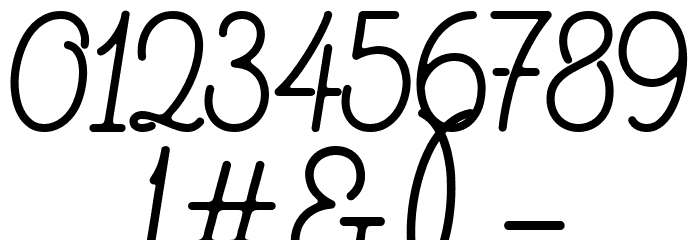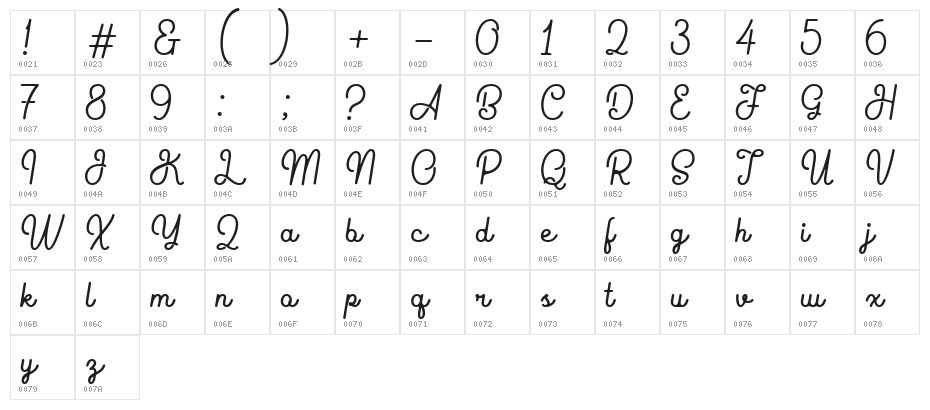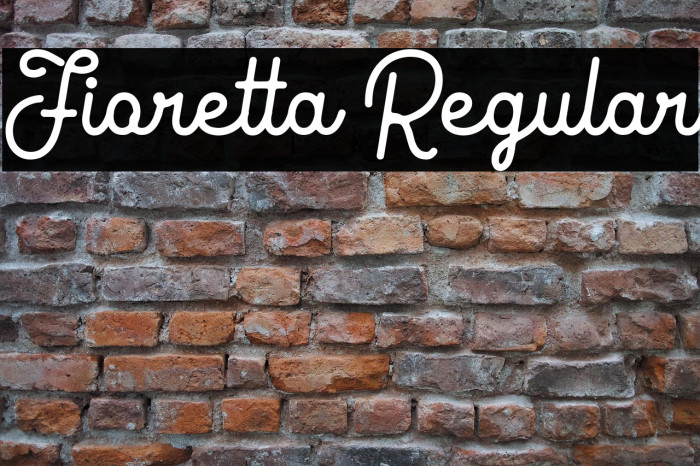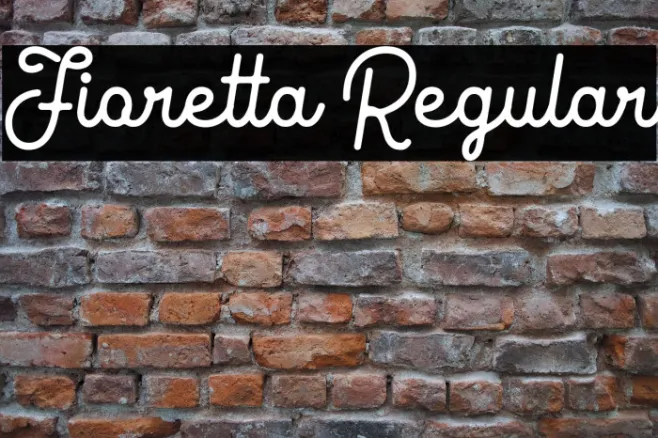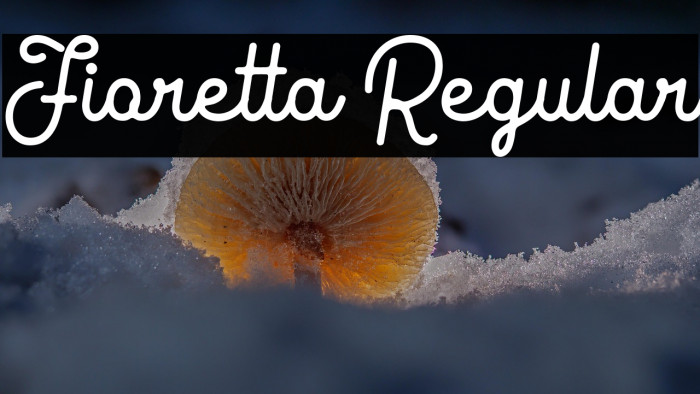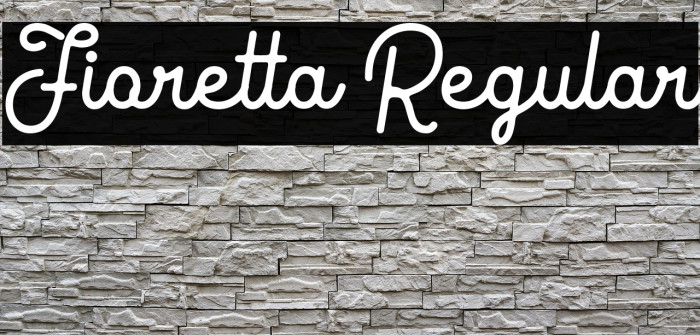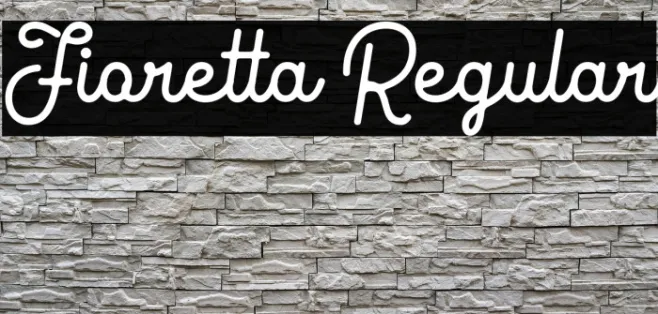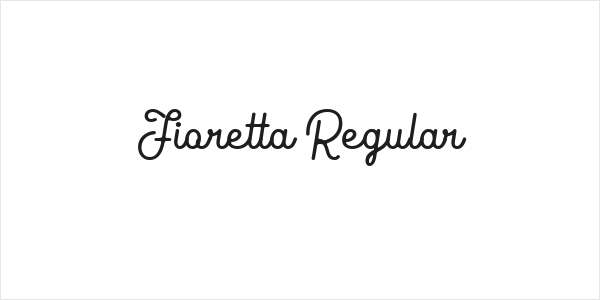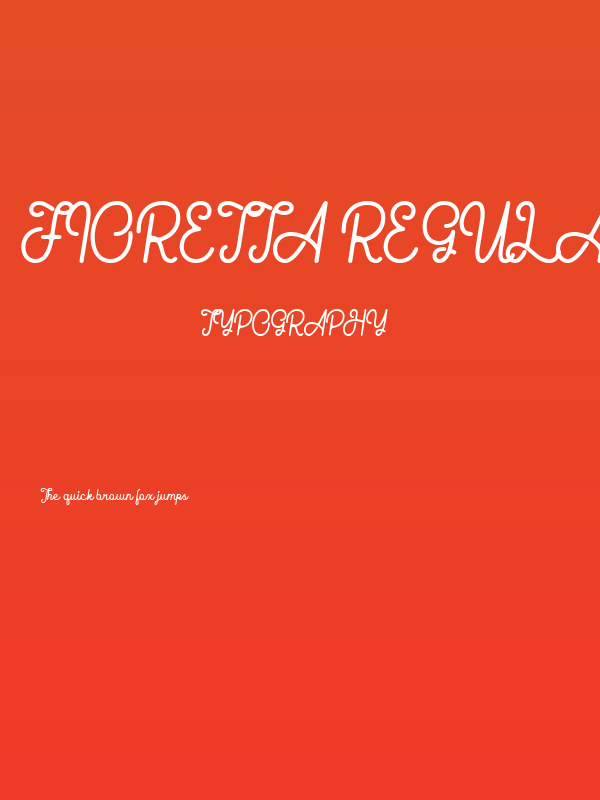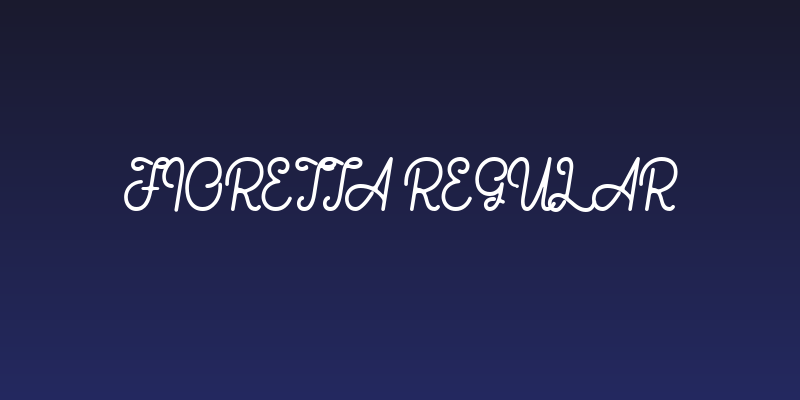
Fioretta Regular Font
Fioretta Regular Description
This font features a flowing, cursive style that exudes elegance and sophistication. The characters are interconnected, creating a seamless and fluid appearance. The uppercase letters maintain a consistent height, while the lowercase letters exhibit a slight slant, enhancing the script-like quality. The numerals and special characters are designed to complement the letters, maintaining the same graceful curves and loops. The overall design is both classic and modern, making it versatile for various applications.
| Overall Style | Elegant, Modern |
| Proposed Projects | Ideal for wedding invitations, elegant branding, greeting cards, and decorative signage. |